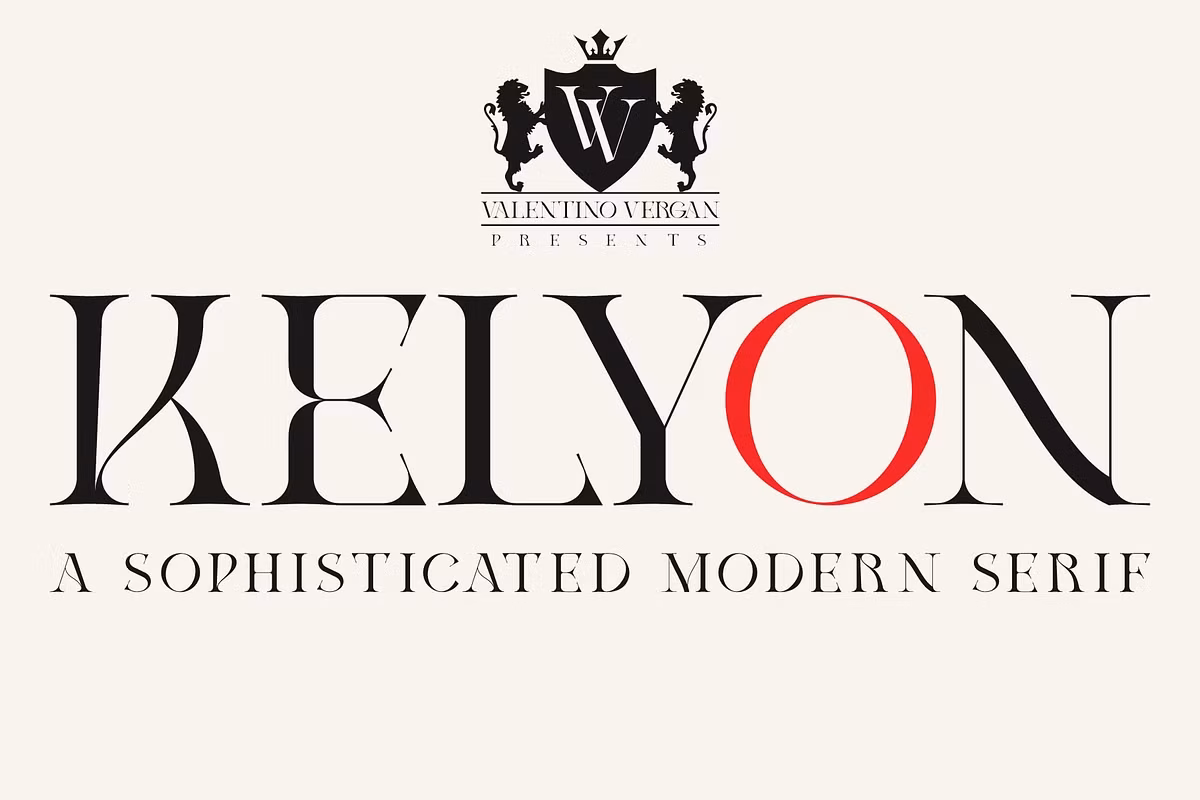
Kelyon - Modern Serif Free Download
Kelyon - Modern Serif Font Free Download is a clean, sophisticated serif typeface designed to bring contemporary elegance to your designs. With its balanced proportions and sharp lines, this font is perfect for creating high-end branding, editorial layouts, websites, and more. Its modern feel combined with classic serif elements makes it ideal for both corporate and creative projects that require readability and style. Whether you're designing a professional logo, a sleek magazine layout, or a sophisticated website, Kelyon - Modern Serif Font Free Download allows you to explore its refined design in personal projects before purchasing a commercial license. Add a touch of modern elegance and clarity to your designs with this beautifully crafted serif font.